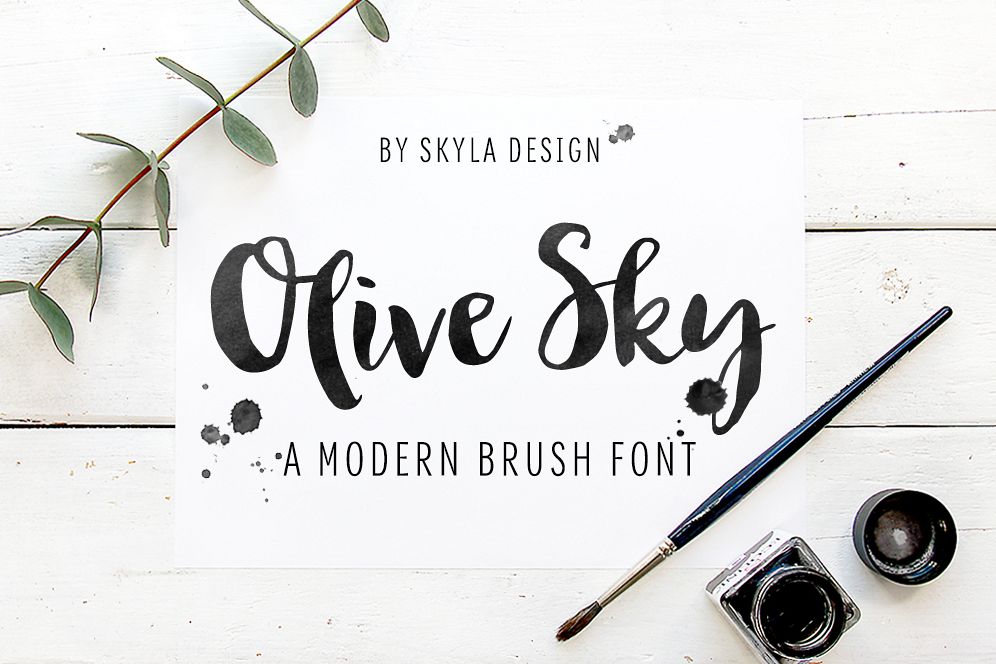
Modern brush font - Olive Sky
Olive Sky is a fun modern brush font which has been hand-lettered with a brush and ink. This font will look gorgeous on all your designs, branding materials, blog headers, business cards, quotes and invitations.
Olive Sky contains standard characters, lowercase, uppercase, numbers, punctuation, ligatures and international characters. You will receive the OTF and TTF files.